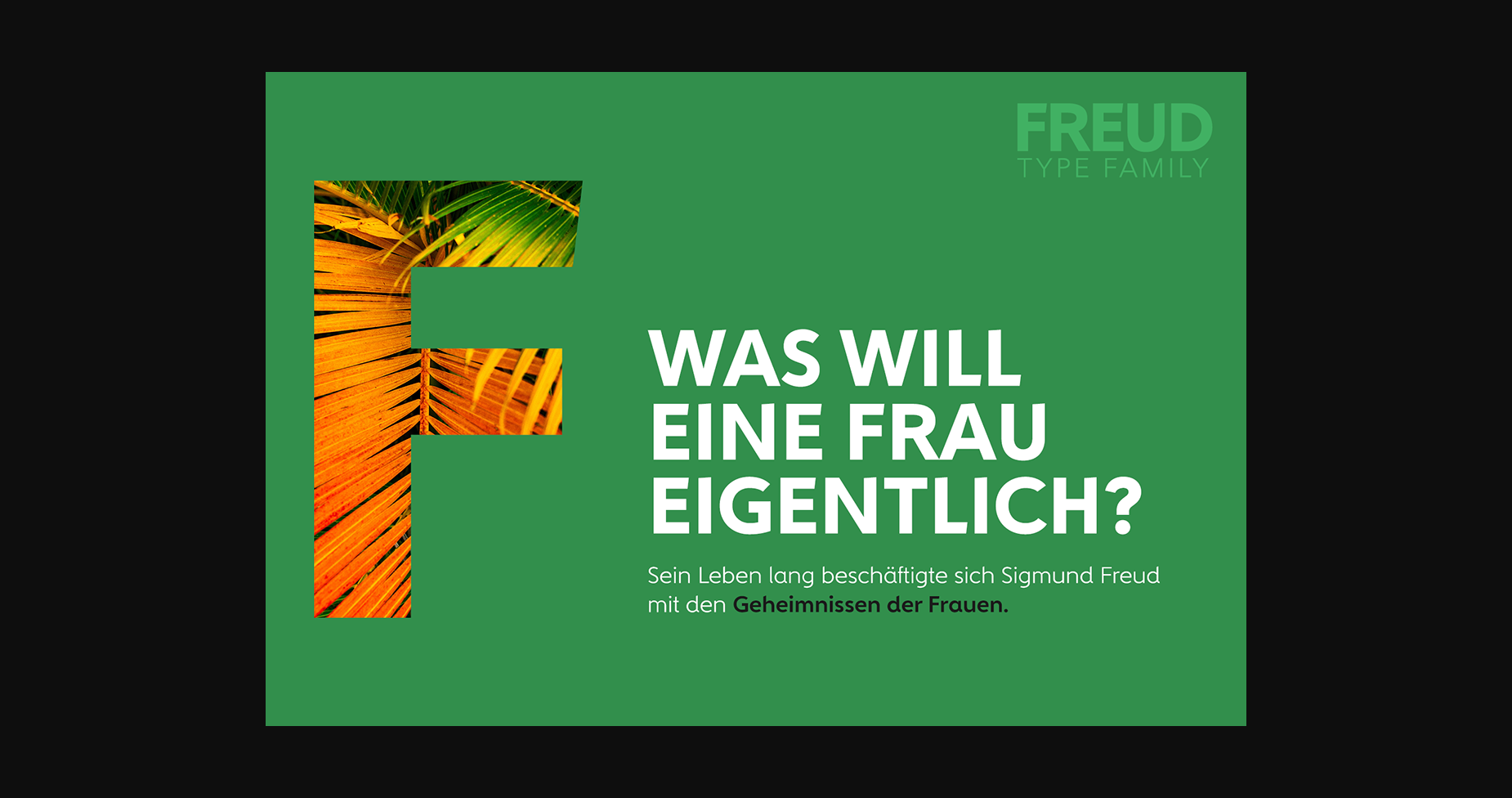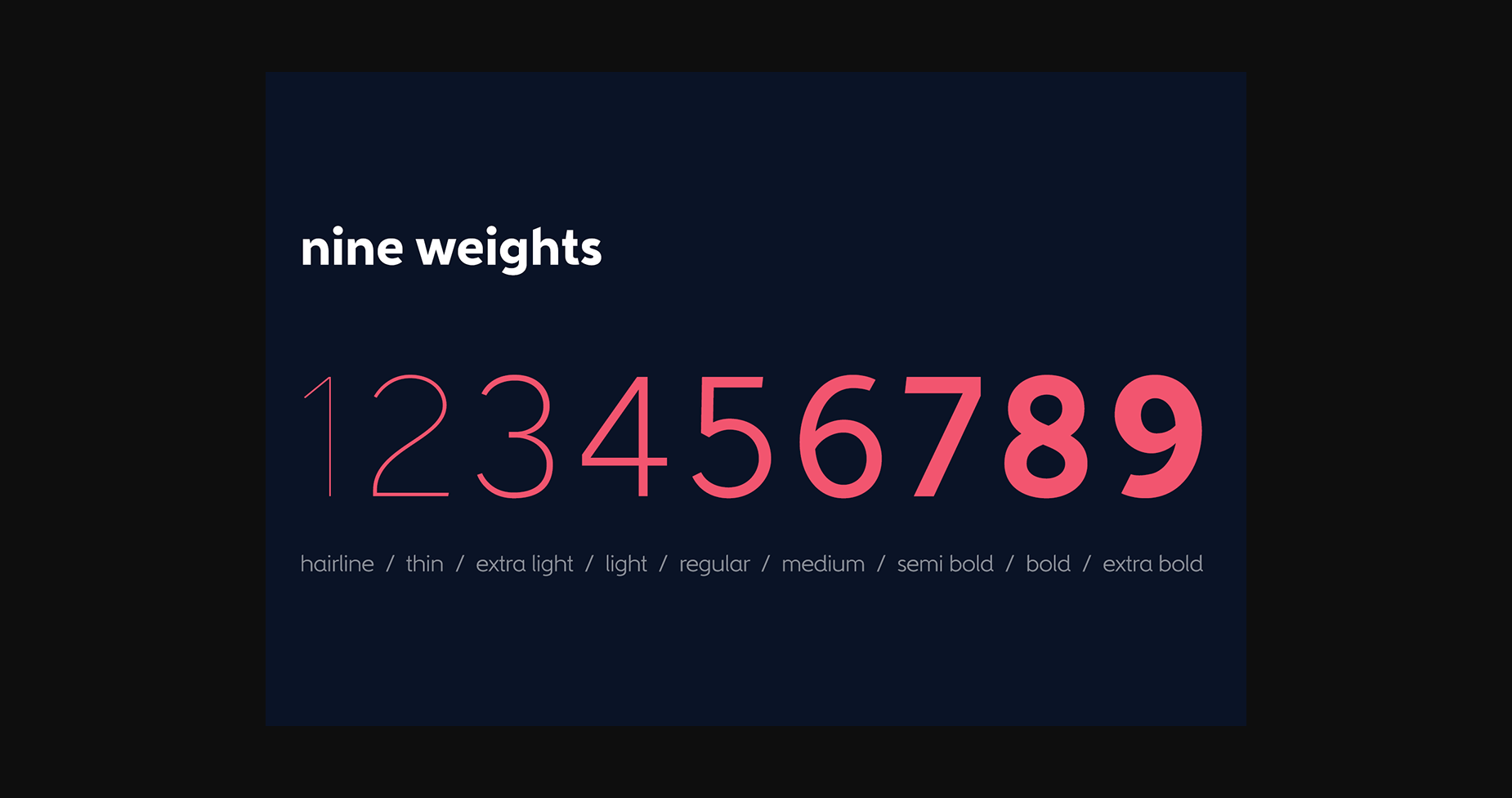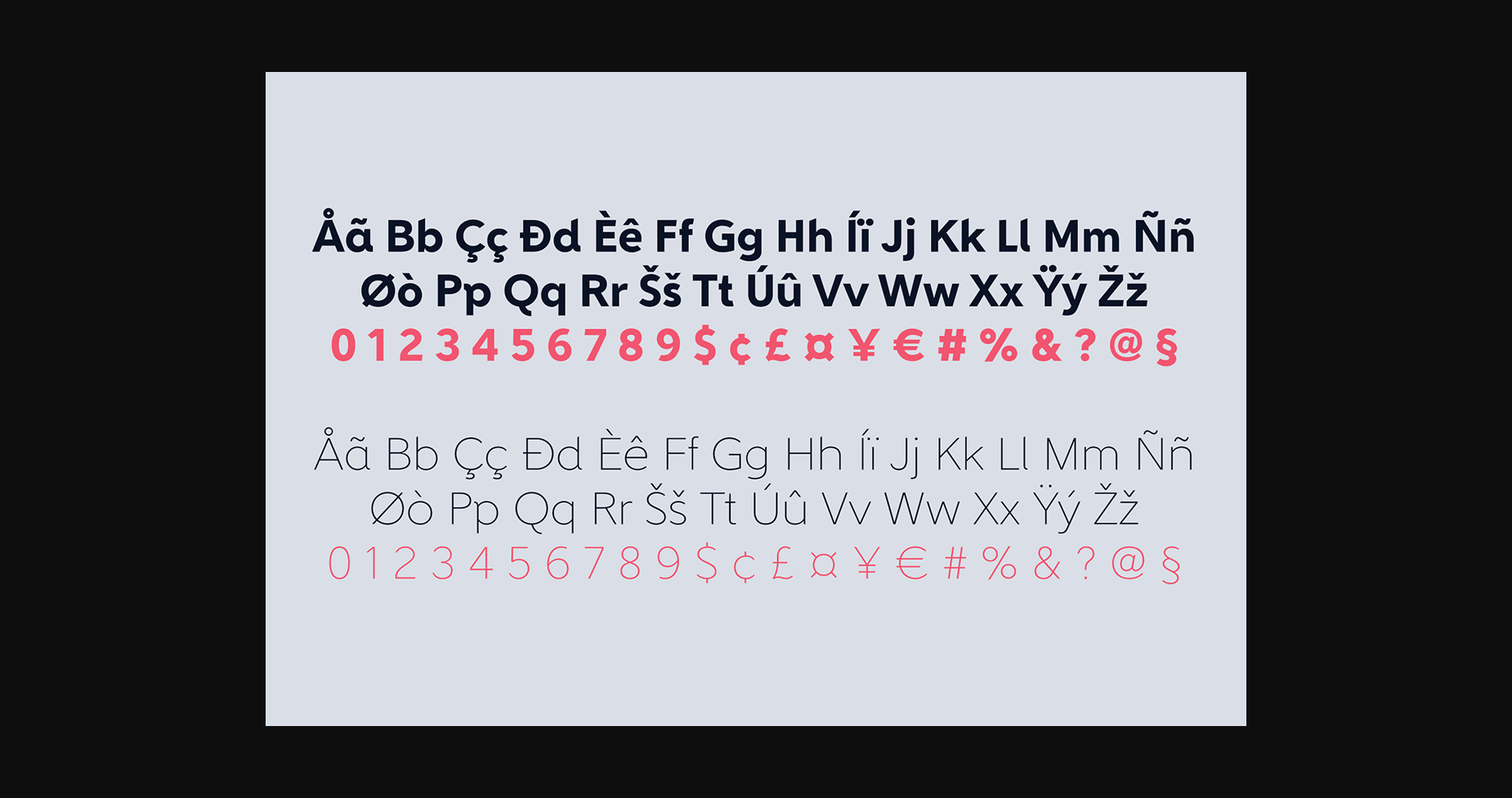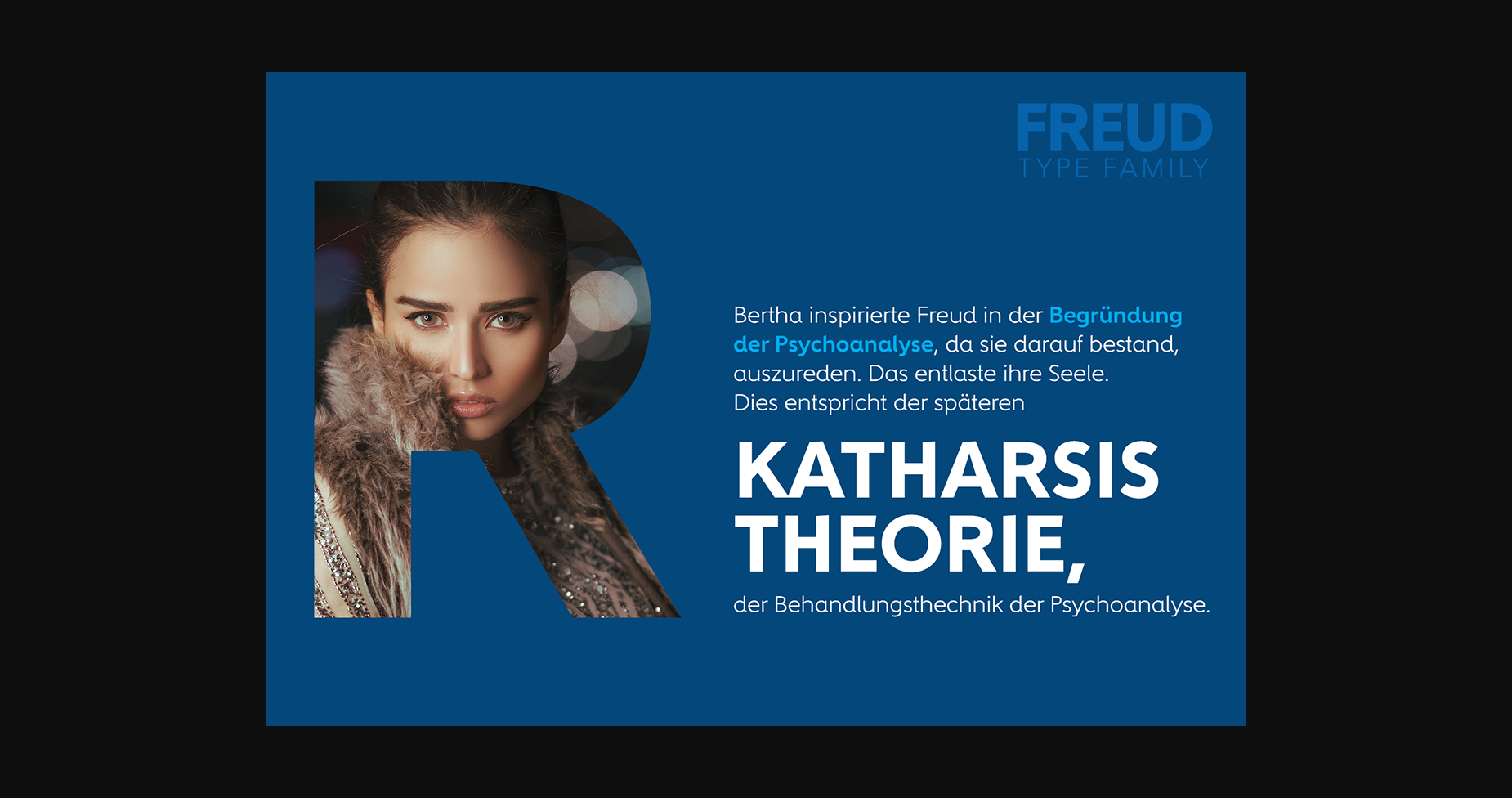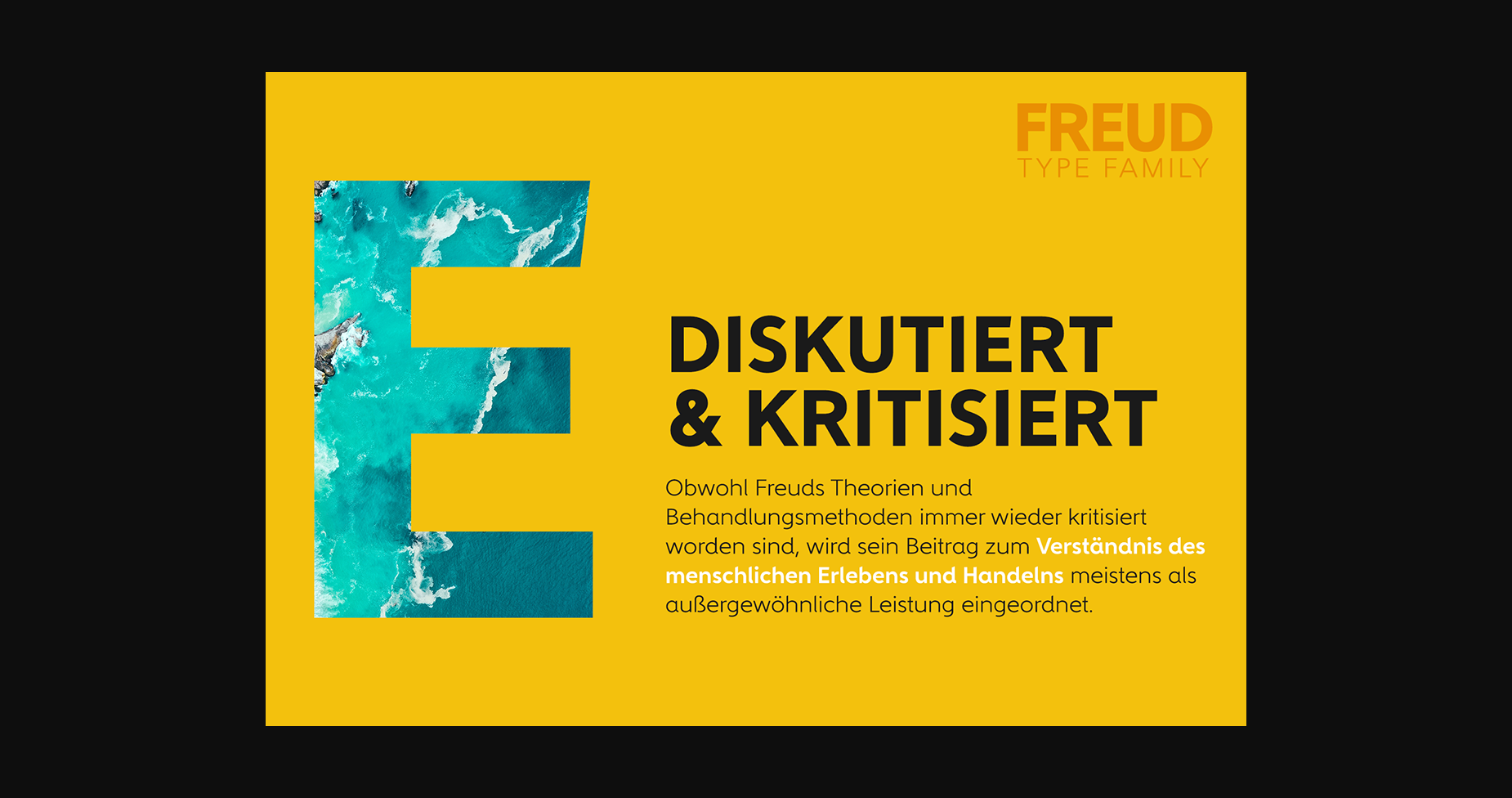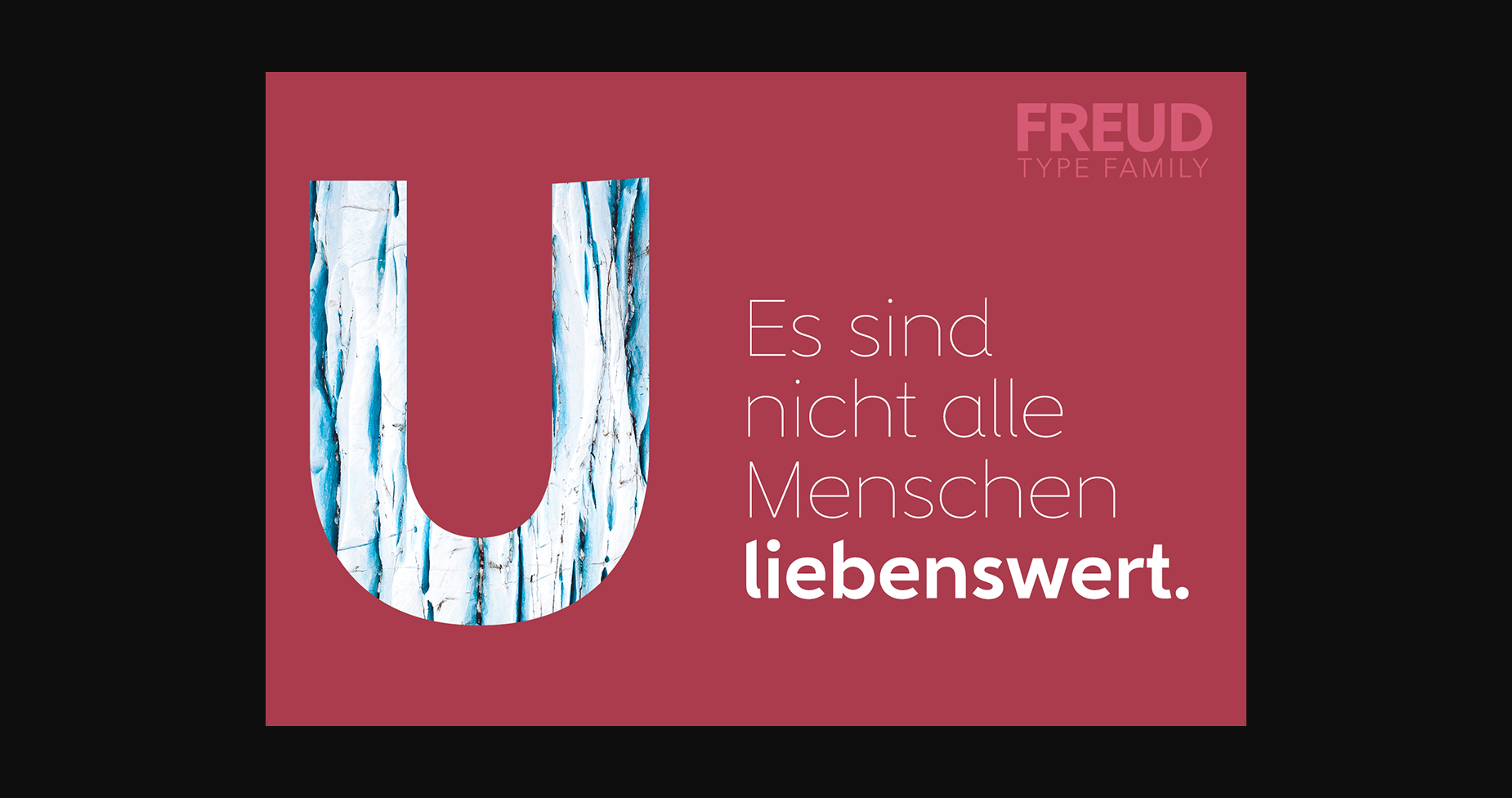
About Freud Font
Designed by Juraj Chrastina, Freud is a sans serif font family. This typeface has nine styles and was published by Juraj Chrastina.
Freud is a sans family of 9 weights ranging from hairline to extra bold (also available as a 5 styles Economy Pack).
It’s a legible face with straightforward geometry spiced with lovely humanist terminals. Some strokes are cut at an angle to enhance their identity.
Freud provides a strong partner both for screen and print projects.
Freud is a sans family of 9 weights ranging from hairline to extra bold (also available as a 5 styles Economy Pack).
It’s a legible face with straightforward geometry spiced with lovely humanist terminals. Some strokes are cut at an angle to enhance their identity.
Freud provides a strong partner both for screen and print projects.